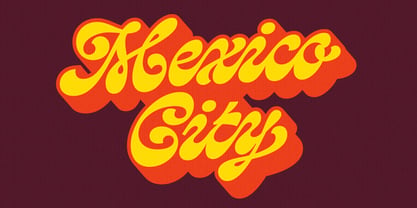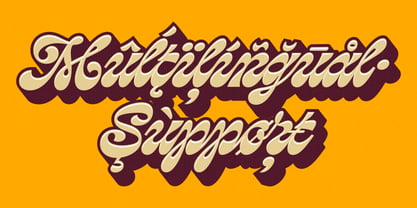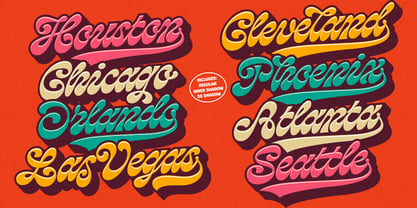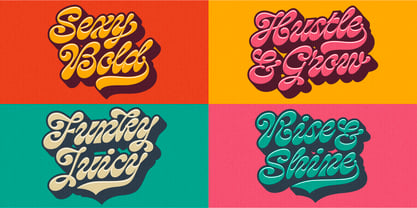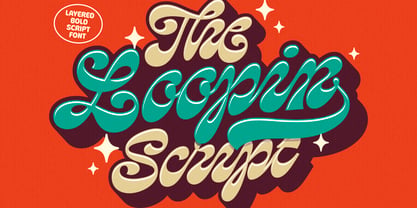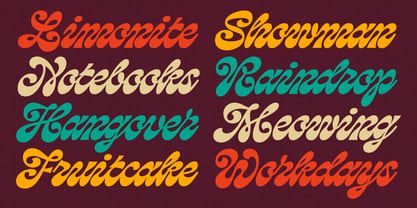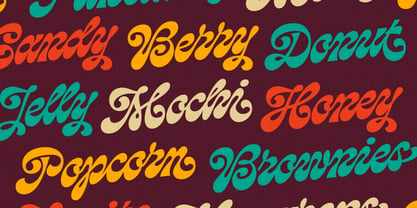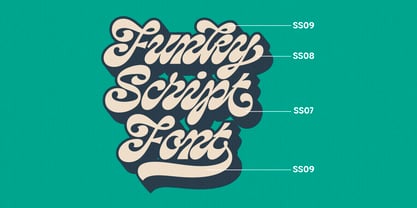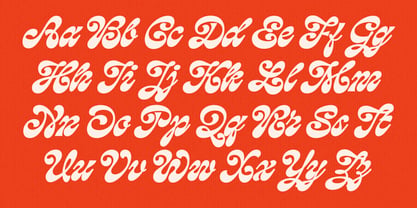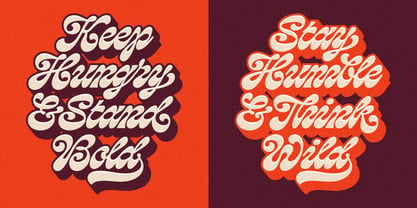
Loopin Script
by Letteralle
The Loopin Script Font Family was designed by Annas Alam Yahya and published by Letteralle. Loopin Script contains 2 styles and family package options. More about this family
Loopin Script is a bold layered script font inspired by vintage lettering and classic sign painting. Combining the charm of a handwritten font with the elegance of retro typography, it features smooth curves and expressive swashes that bring warmth and personality to every design.
Whether you're creating a memorable logo, building a strong branding identity, designing packaging, apparel, posters, or social media graphics, Loopin Script delivers the timeless appeal of a vintage script font with the versatility of a modern display font. Its layered style adds depth and dimension, making every word look bold, stylish, and professionally crafted.
The font includes Regular, Inner Shadow, and 3D Shadow styles, giving you the flexibility to create anything from clean lettering to rich vintage effects. Use each style on its own or combine them to achieve eye-catching typography with extra depth and visual impact.